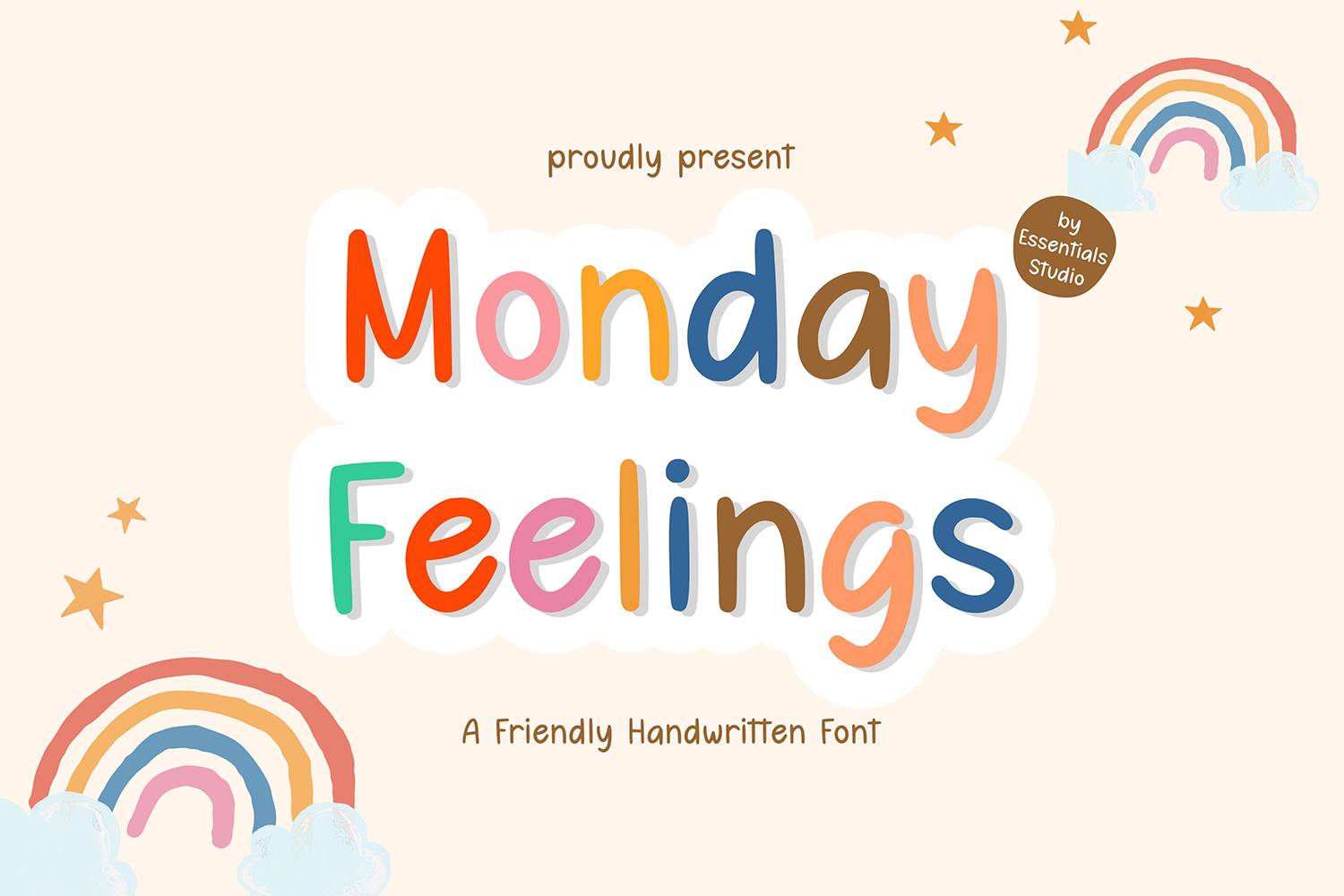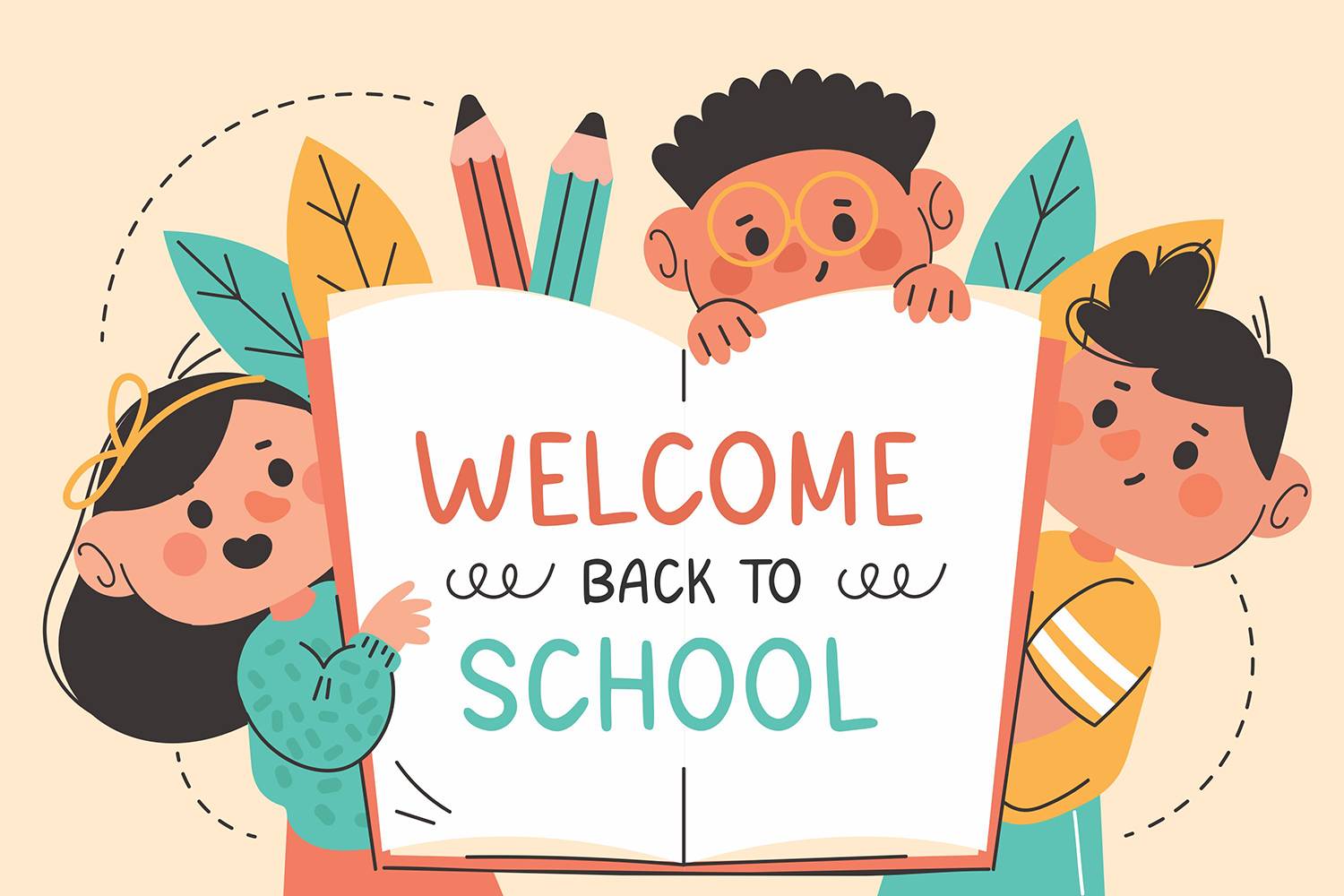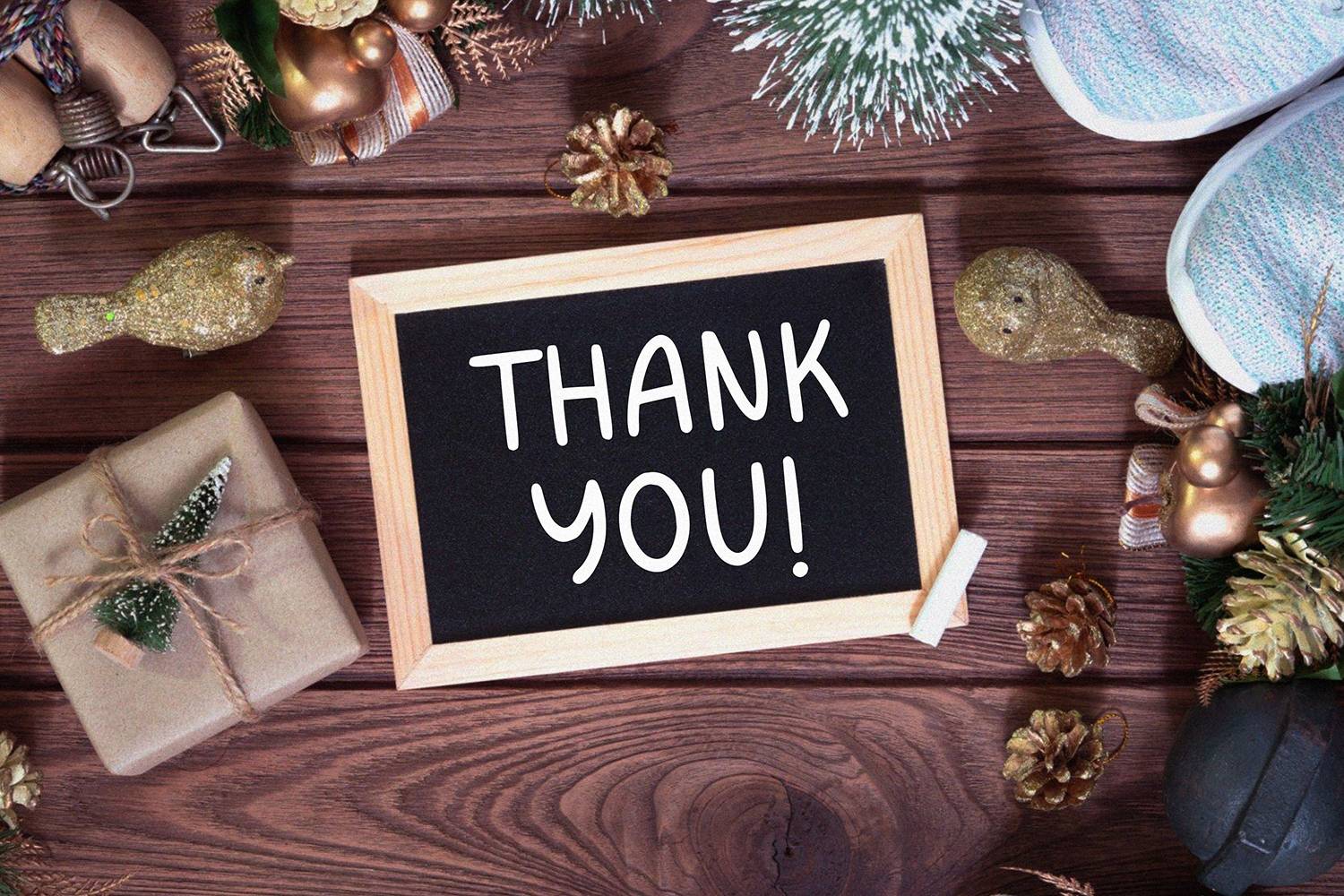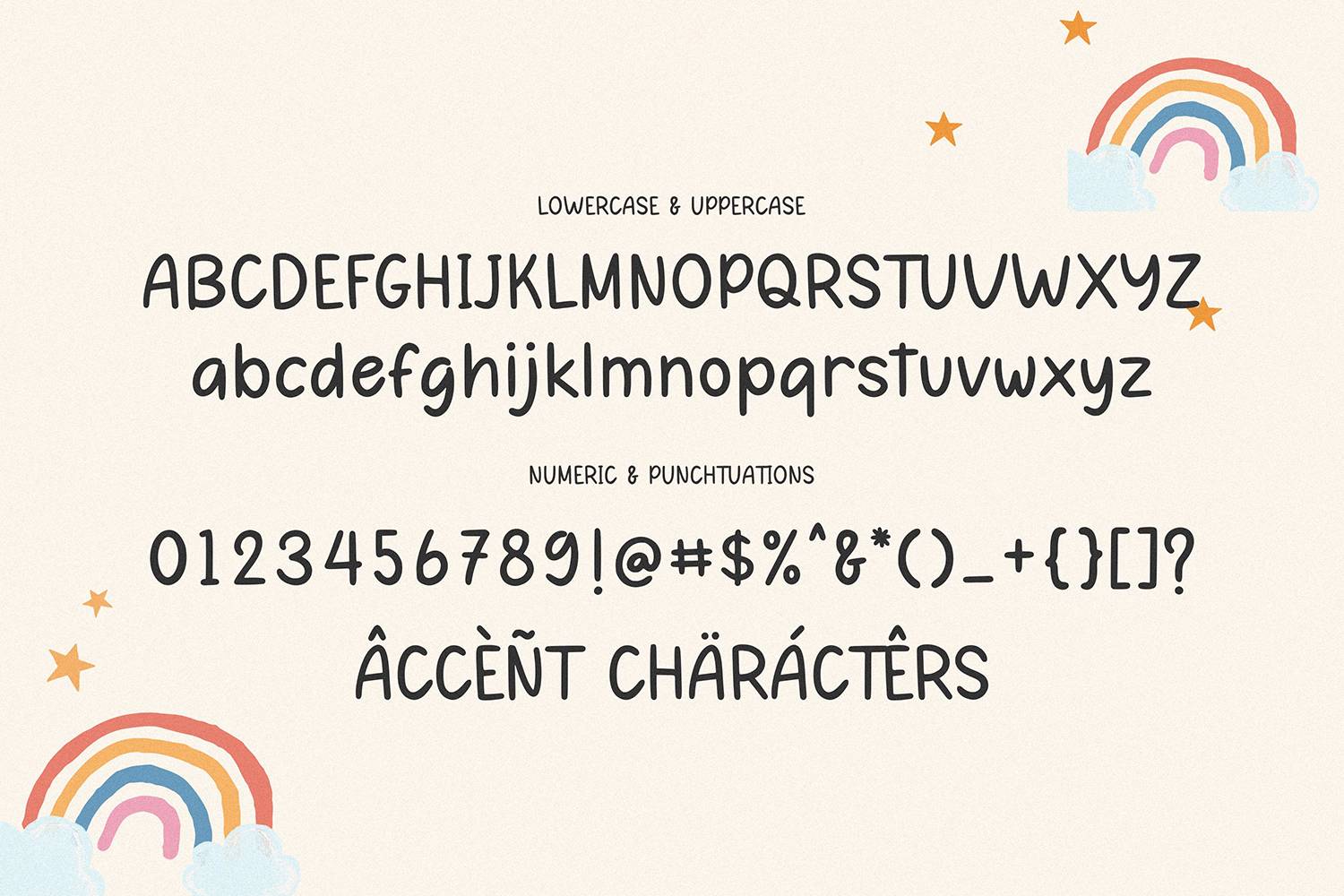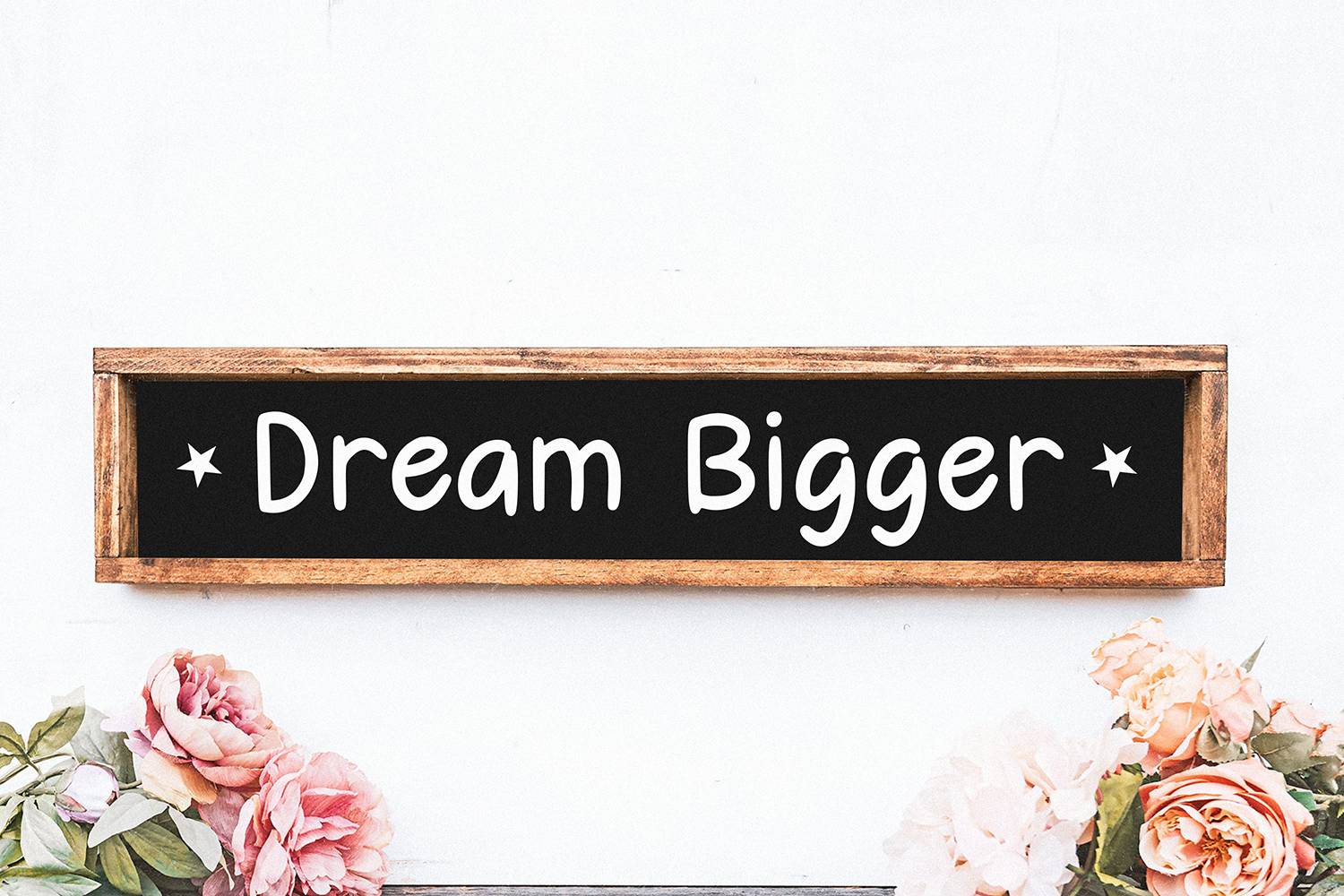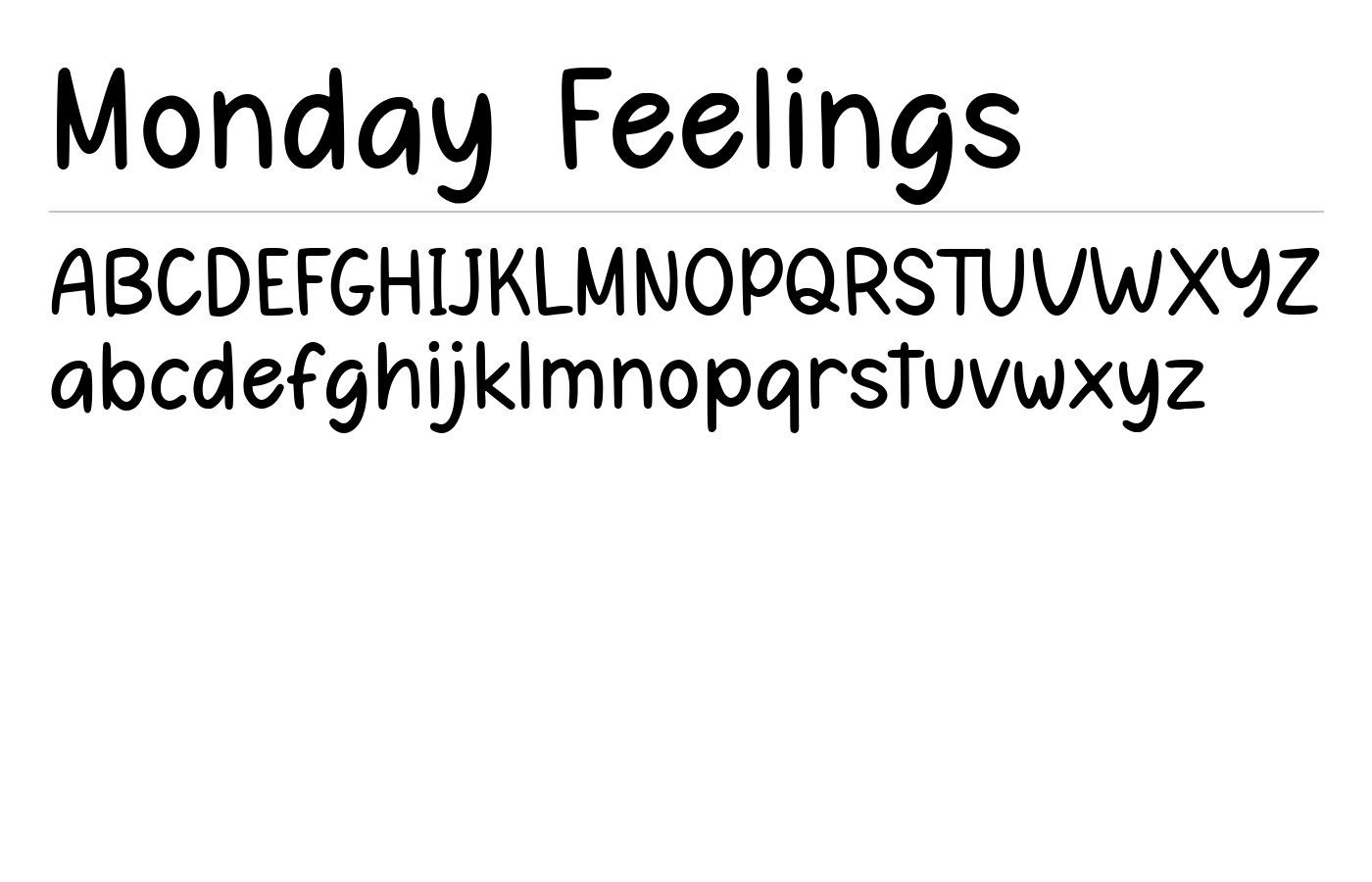
Monday Feelings is a playful sans serif font with a casual, handwritten style that feels friendly and approachable. Its rounded, slightly uneven strokes give it a relaxed, informal vibe, making it ideal for fun, youthful branding, children's content, and lighthearted designs. This font works well for headlines, social media graphics, and any project that benefits from a warm, personal touch.
Monday Feelings Font